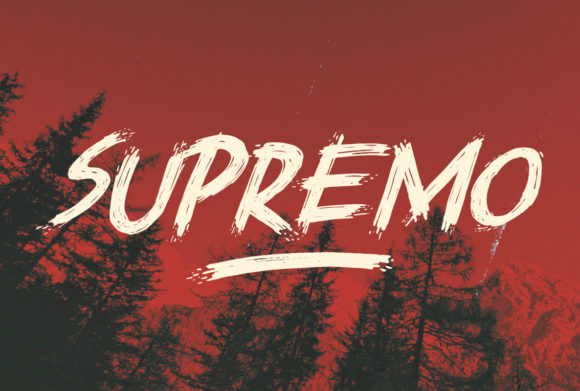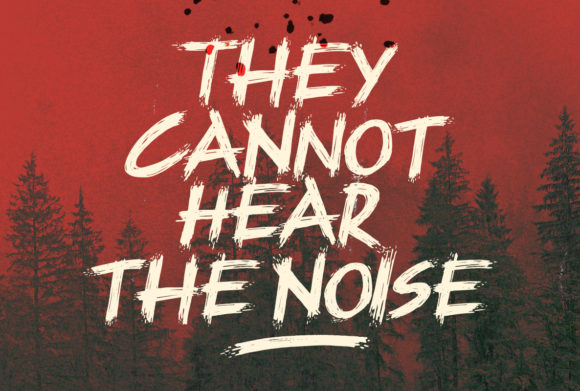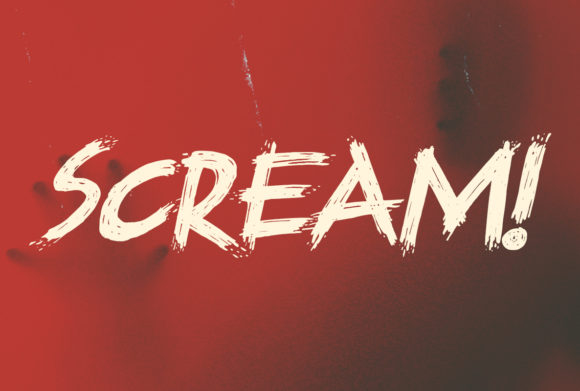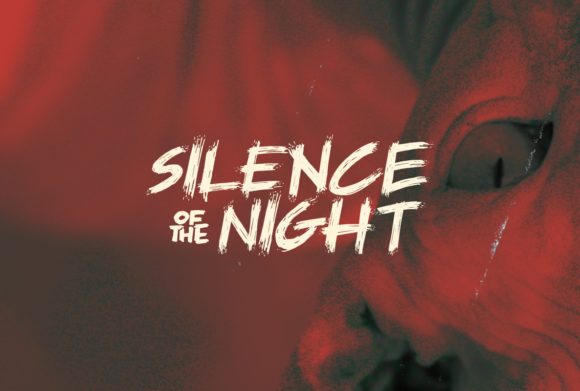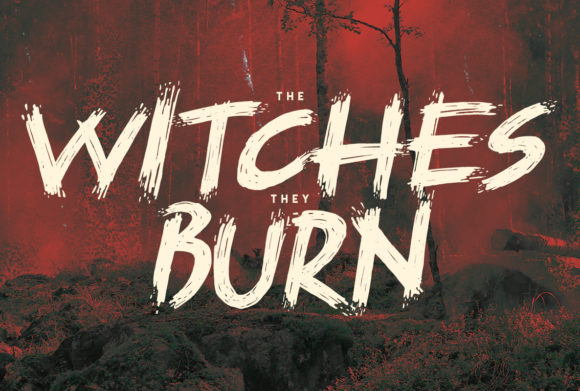
HomeScript FontsSupremo Font Script Fonts Supremo Font FacebookXPinterestWhatsApp Supremo Font Poster 2 Supremo Font Poster 3 Supremo Font Poster 4 Supremo Font Poster 5 About Supremo Font Supremo is a scary good script, perfectly made for all Halloween or Horror projects! DOWNLOAD ON CREATIVE FABRICAThis font is sold and delivered by Creative Fabrica. Font Canyon may earn a commission if you buy through this link. People also explored Sand Thoren Font Caramel Font Gritalina Font Heavenly Script Font Jissela Font Rehan Font Valentine Melodyne Font Brush Stroke Font Brush Creeping Font 324 0 TagsSupremo Font Previous articleKhattab FontNext articleUtrecht Font LEAVE A REPLY Cancel reply Comment: Please enter your comment! Name:* Please enter your name here Email:* You have entered an incorrect email address! Please enter your email address here Website: Save my name, email, and website in this browser for the next time I comment. Personal Use Free Kensin Personal Use Free Read more about this font Saolice Personal Use Free Read more about this font Super Bubbly Font Personal Use Free Read more about this font Archipellago Personal Use Free Read more about this font BLOG Elegant Wedding Invitation Fonts – Handwritten & Script Fonts Elegant Wedding Invitation Fonts Your wedding day is one of the most important moments of your life, and every detail matters—including your invitation design. Our... Transform Your Website: Elevate Your Typography with 7 Best Web Font Generators Free Fonts Risk: Why Free Fonts Can Be Dangerous for Designers Free vs Paid Fonts: Why Investing in Premium Fonts Is Worth It